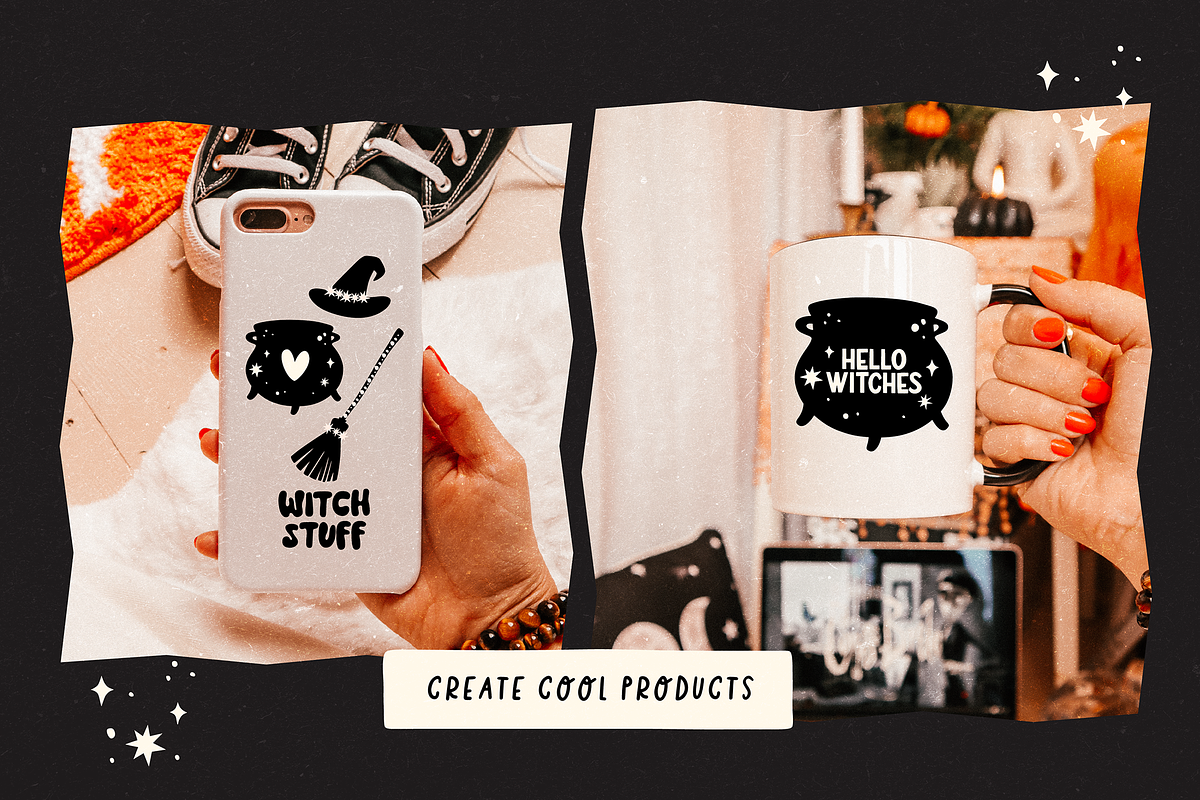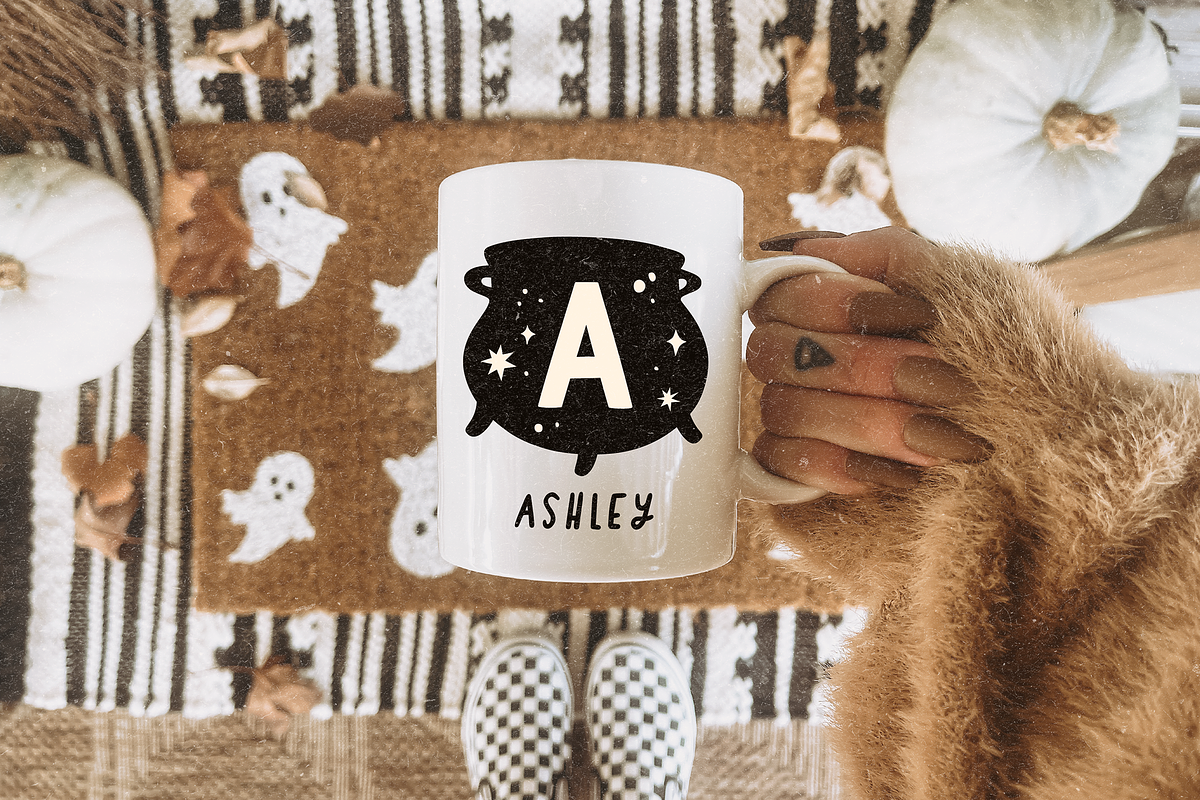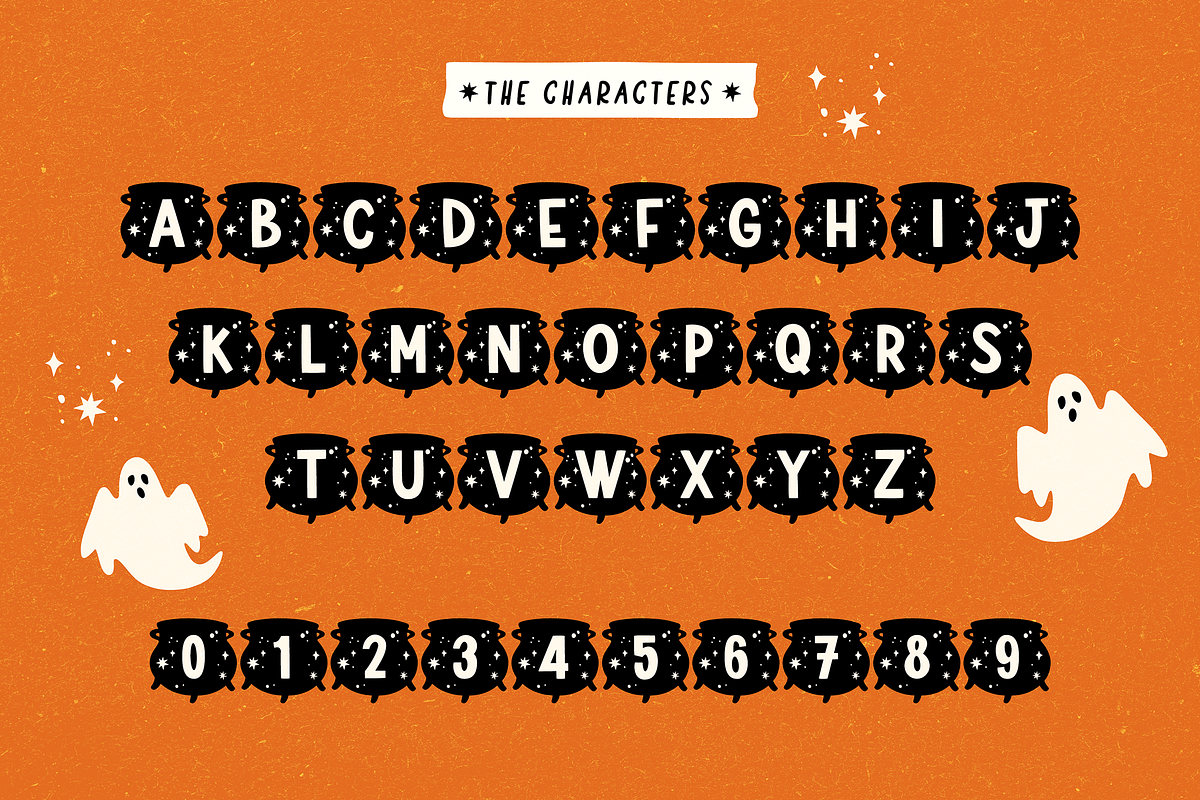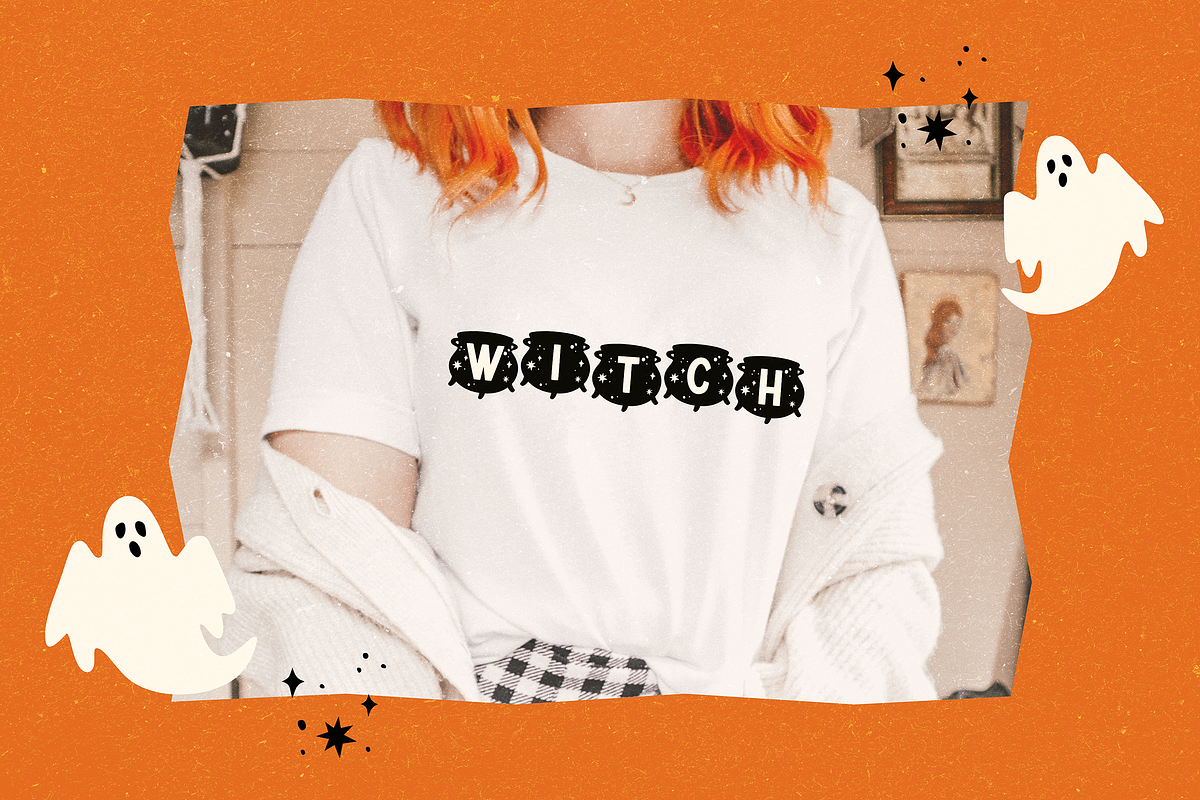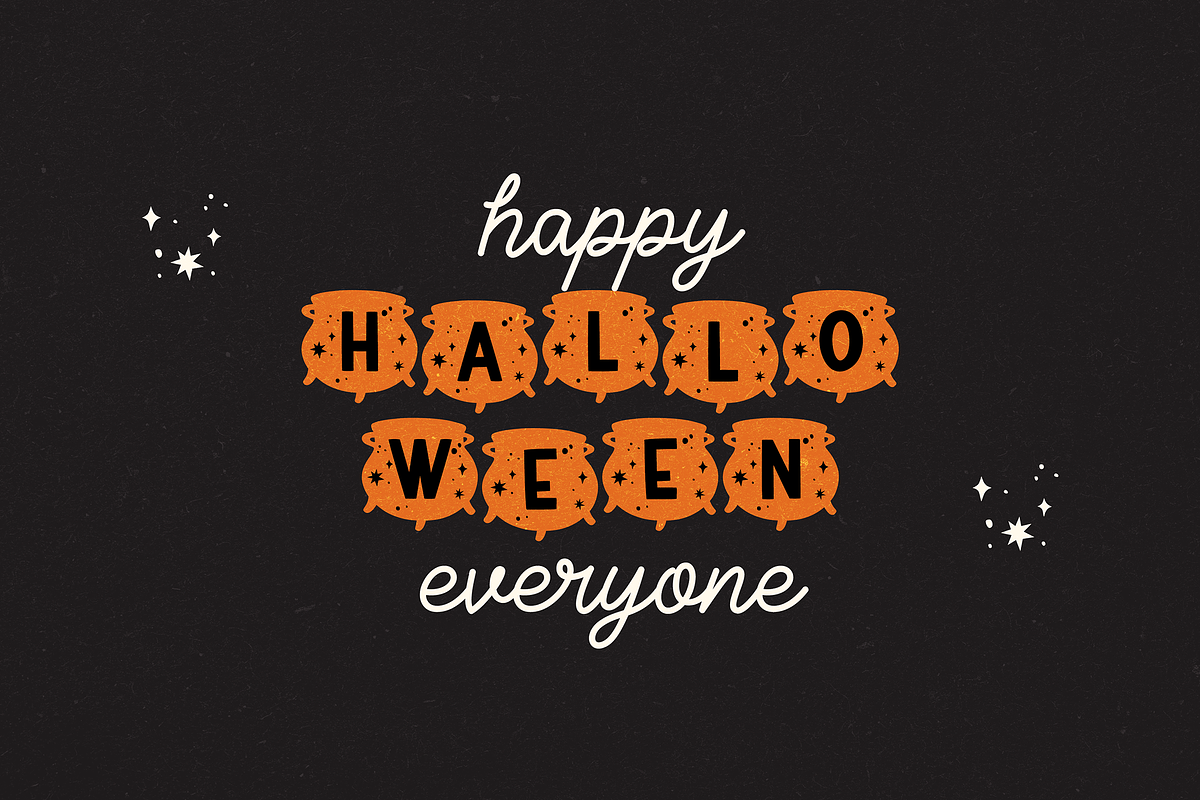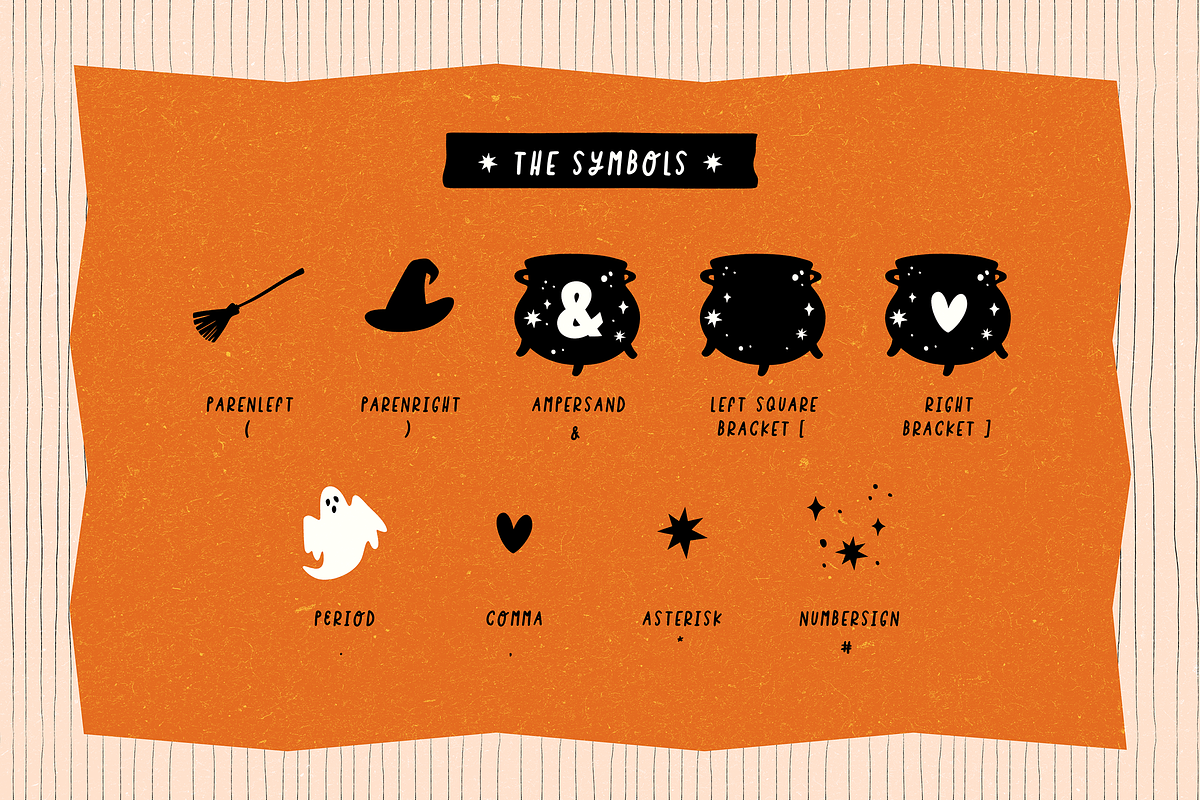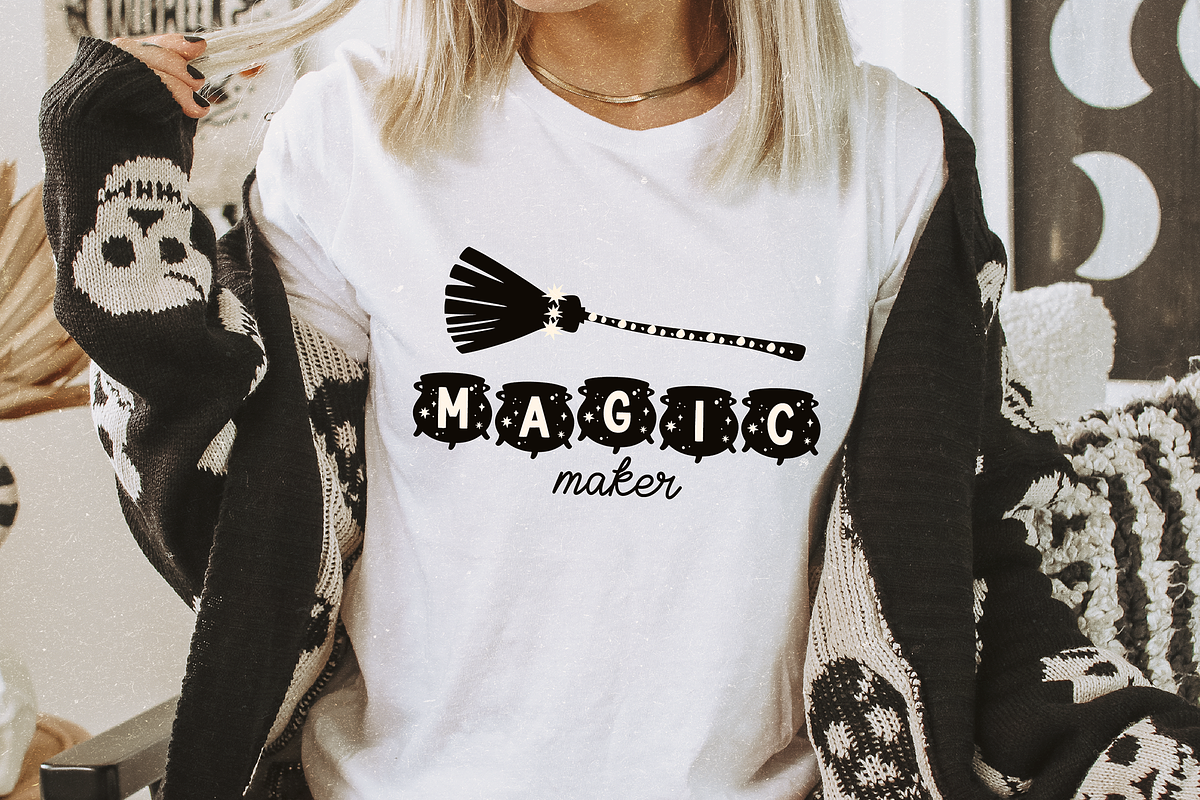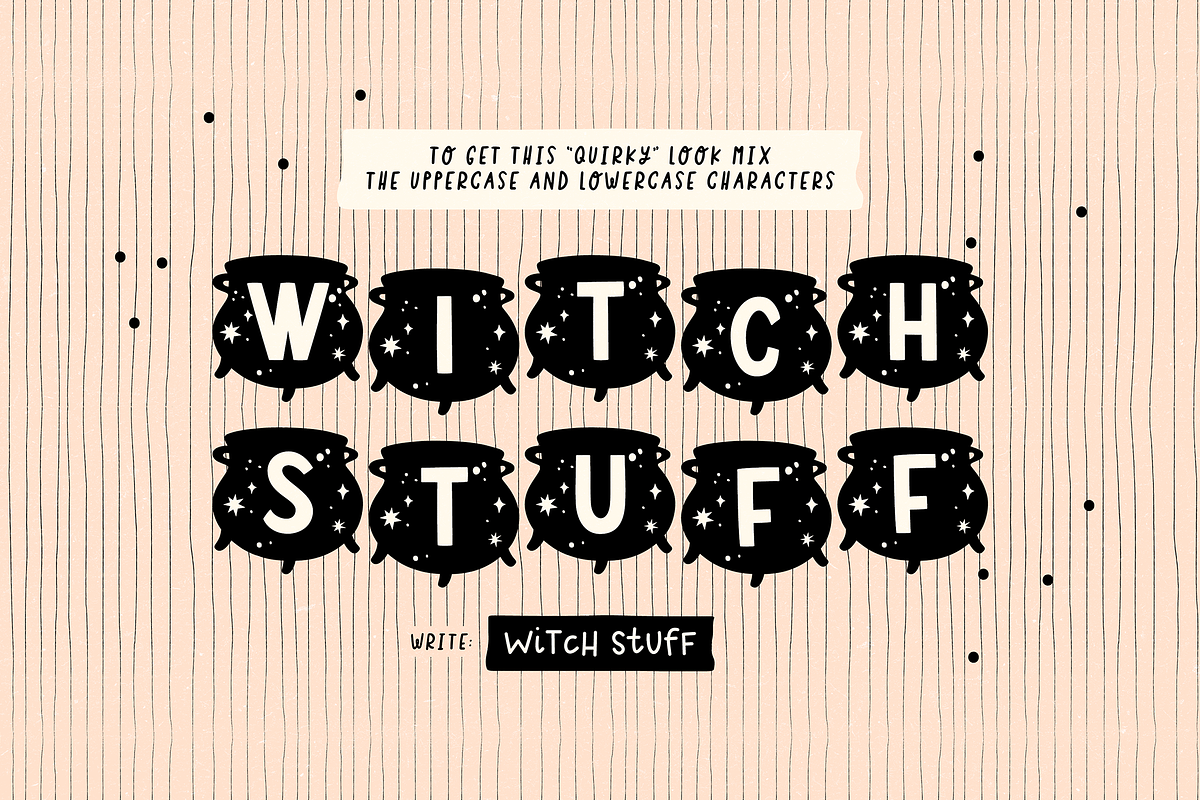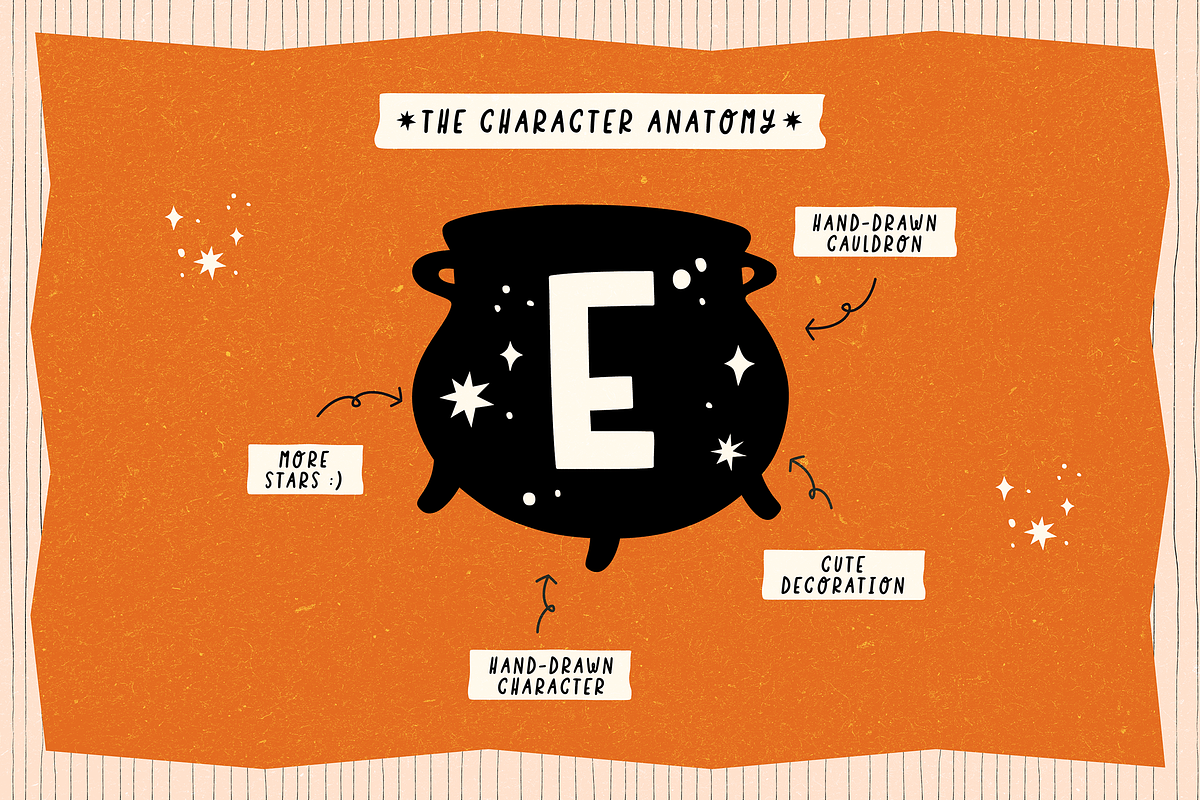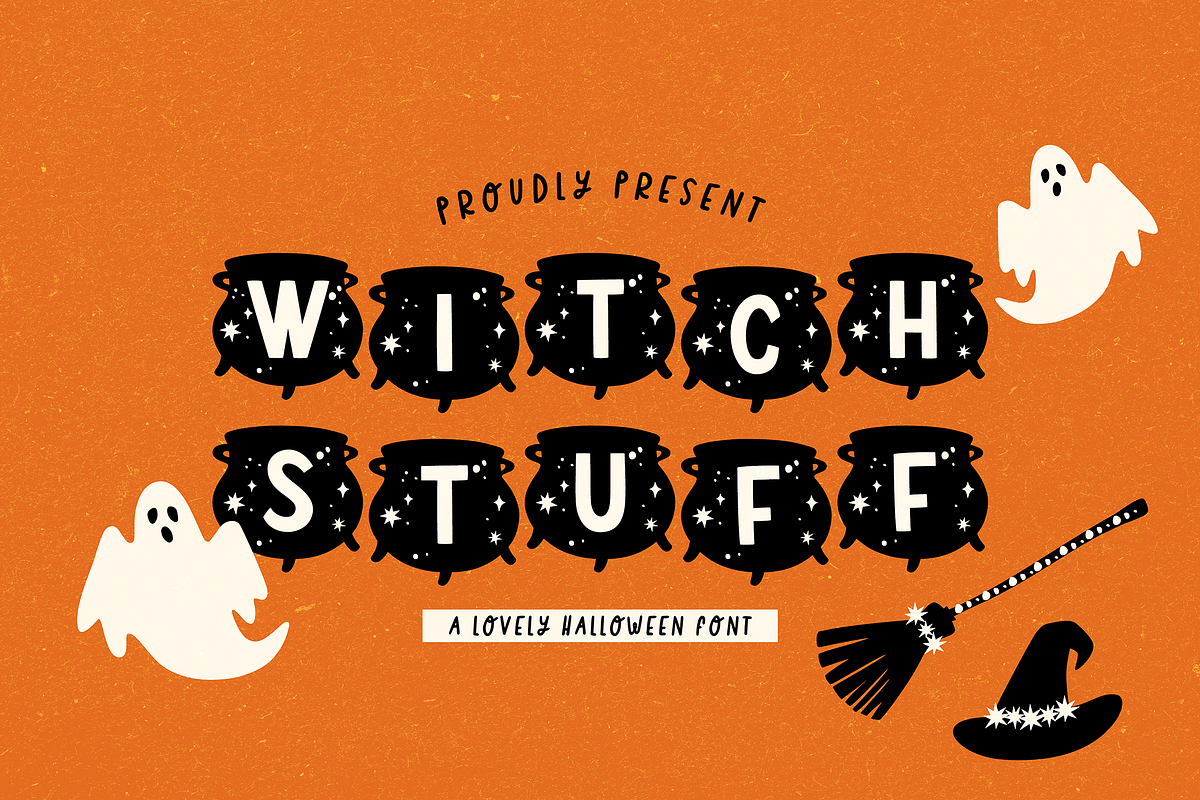
WITCH STUFF
WITCH STUFF is a lovely and cool cauldron font.
I had this idea after creating 'dear xmas' two years ago, I used the same characters, since I really liked the concept I achieved years ago. Obviously, I've learned a lot in these two years, and this font is even more beautiful, I added many stars and, of course (the main shape)… a cool and huge cauldron!!!.. I really loved the outcome. What do you think? It's cool, don't you think?
I love that it's full of magic, cauldrons, and lots of stars.
✷ Use the 14 symbols included to make cute/cool compositions.
- Period . – Ghost
- Comma , – Heart
- Colon : – “White witch” cauldron
- Colon ; – “Making magic” cauldron
- Asterisk * – Star
- Number sign # - Stars group
- Slash / – “Stay spooky” cauldron
- ParenLeft ( – Witch's broom
- ParenRight ) – Witch Hat
- Bracket Left [ – Cauldron
- Bracket Right ] – Heart Cauldron
- Ampersand & – & Cauldron
- Plus + – “Halloqueen” Cauldron
- Percent % – “Hello witches” Cauldron